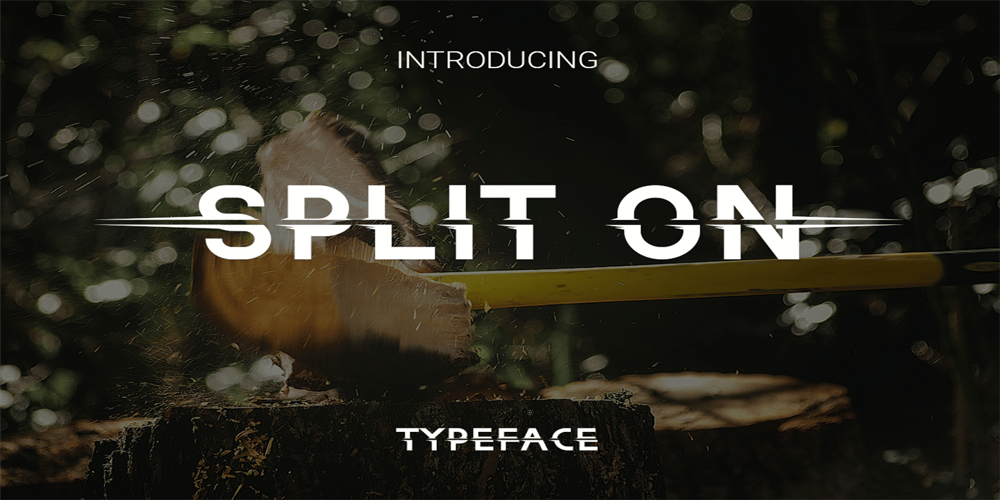
Split On Font Family was designed by RoninDesign and published by Ronin Design. Split On contains 1 styles and family package options. Split On is a typeface font has a sliced design with a cut line effect, this font have a different line between uppercase and lowercase, perfect for poster, cover, t-shirt and many more